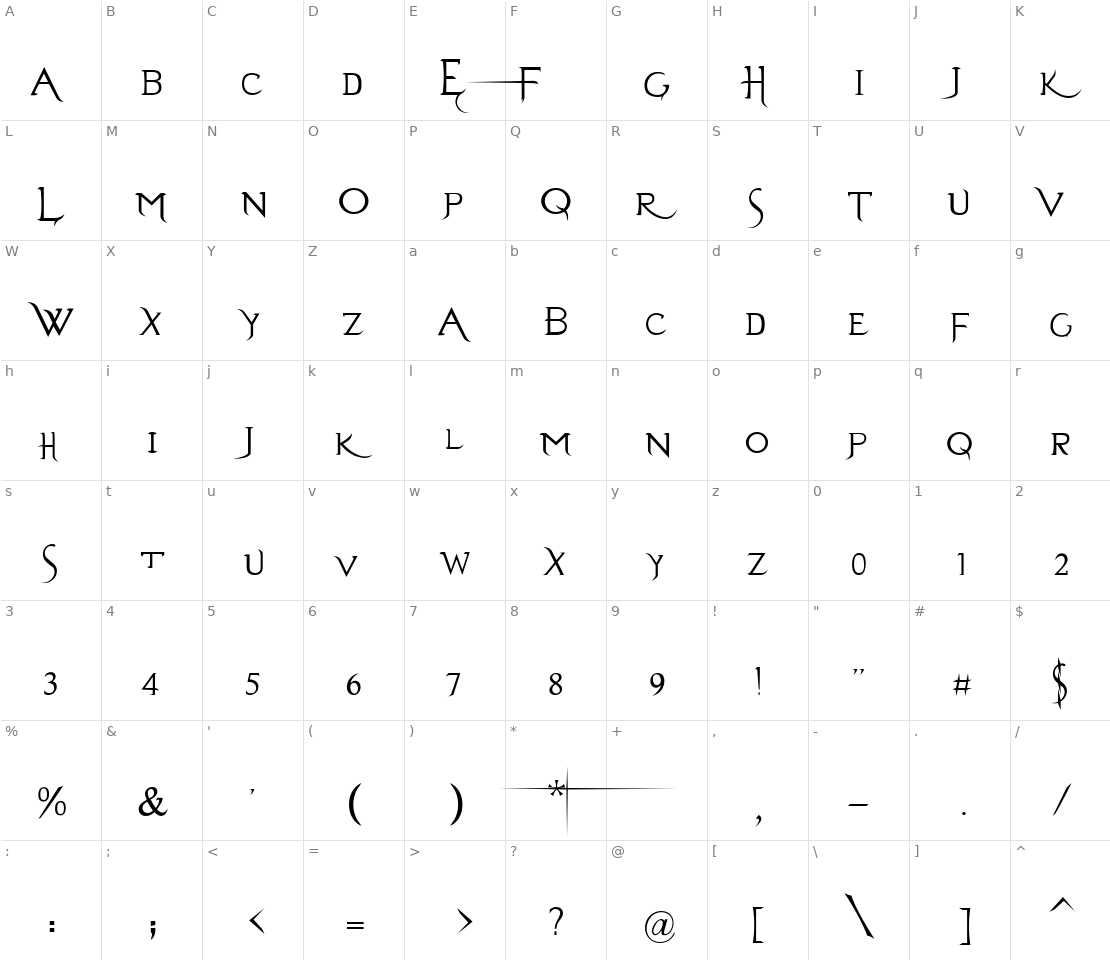
Evanescent
Evanescent is a thin, decorative display face by Aeryn with delicate, mixed-case letterforms that carry a quiet mystical quality. The strokes feel wispy and hand-drawn, as though the letters might dissolve if you looked away, giving it a distinctly fantasy-leaning character. Best used for headlines, book covers, and artistic projects where ethereal elegance matters more than practicality.